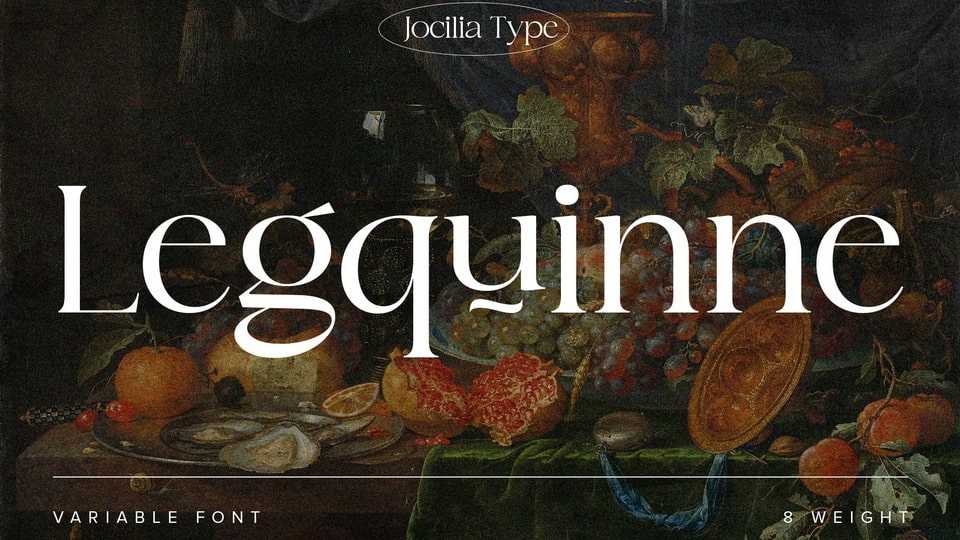
Download Legquinne font, a serif font designed to reflect elegance and modernity to create an aesthetic feeling. Exquisite and refined, Legquinne font seamlessly blends classic sophistication with contemporary flair.